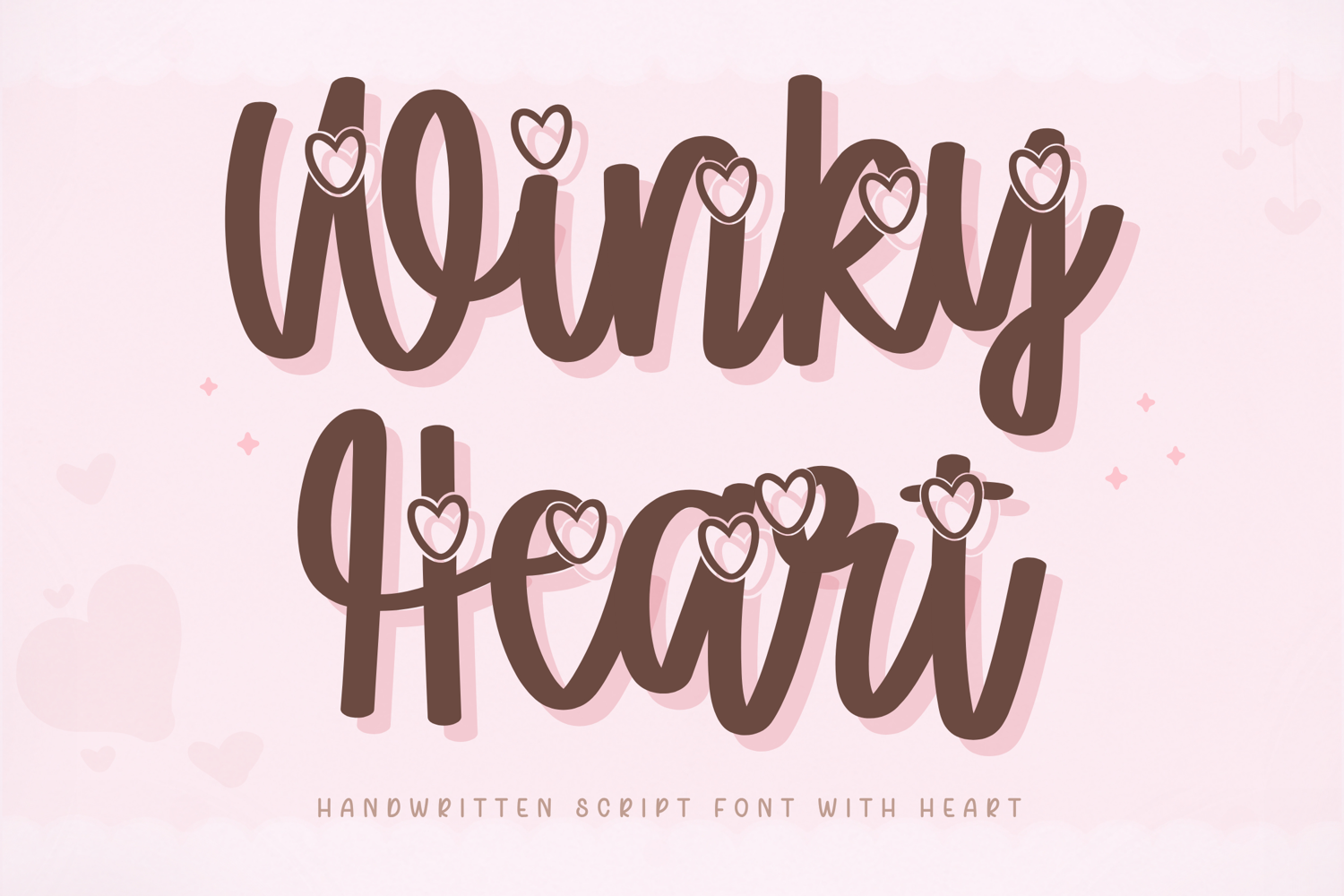
Winky Heart - Handwritten Script Font with Heart
Winky Heart – Handwritten Script Font with Heart
Winky Heart is a cute and playful handwritten script font decorated with charming heart details that instantly add a sweet and romantic touch to your designs. Its soft curves and friendly style make it perfect for creating warm, lovable, and eye-catching visuals.
Designed especially for Valentine themes and feminine aesthetics, this font brings a fun and joyful personality while still being easy to read and versatile for many creative uses.
Key Features:
Full set of uppercase and lowercase letters
Numerals, punctuation, and symbols
Ideal For:
Cricut and cutting projects
Digital planners
Stickers and printable designs
Branding and logos
Social media graphics
Winky Heart is designed to bring a soft, romantic, and cheerful vibe, making it ideal for designs that need a touch of love and personality.